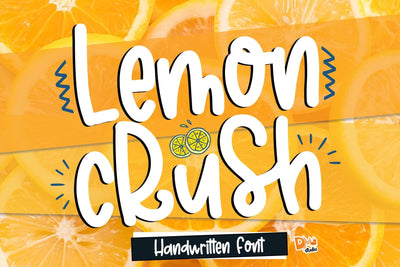
Lemon Crush
Lemon Crush – Handwritten Font
Lemon Crush is a zesty and playful handwritten font that adds a burst of cheer to any design. With its bouncy letters and casual brush strokes, this font brings a sunny, carefree energy perfect for bright branding, packaging, and creative projects that need a splash of fun.
Playful Personality: Lighthearted handwritten style with a juicy twist.
Organic Flow: Smooth brush-like strokes that feel fresh and natural.
All-Caps and Lowercase: Offers a balanced mix for various design needs.
Ideal For: Summer-themed products, quotes, social media, labels, and lifestyle designs.